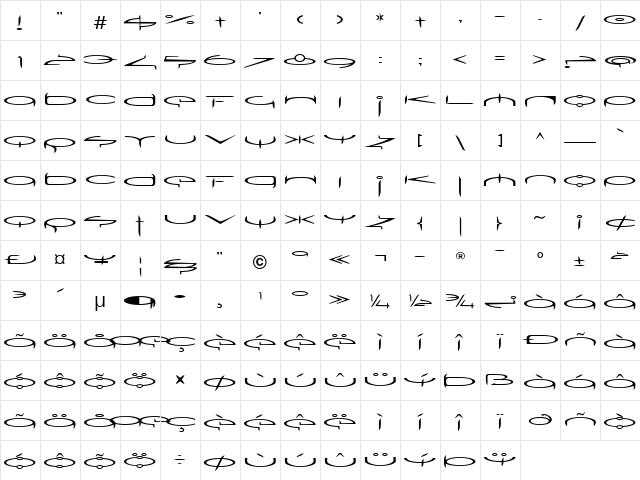
SubmergeOne LT Regular
Design Context for SubmergeOne LT
SubmergeOne LT is a composed and adaptable typeface that performs quietly and consistently across a wide range of design contexts. Its slender proportions lend an understated elegance to any composition.